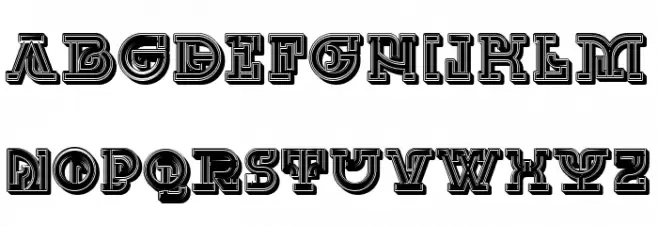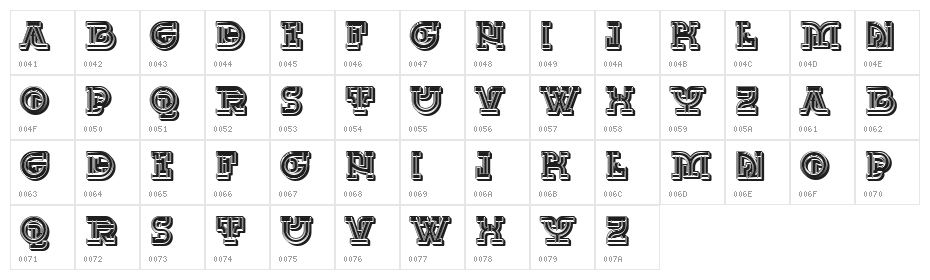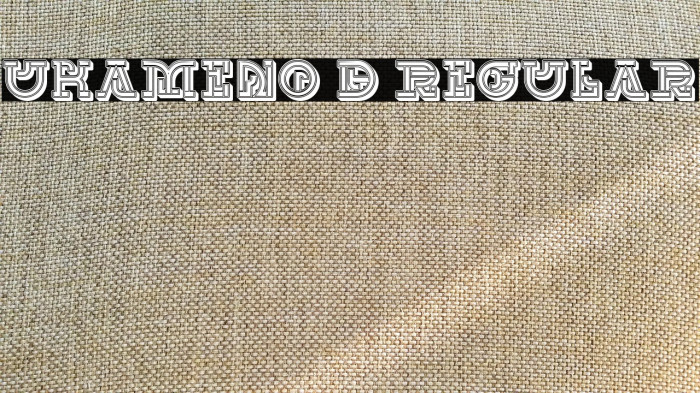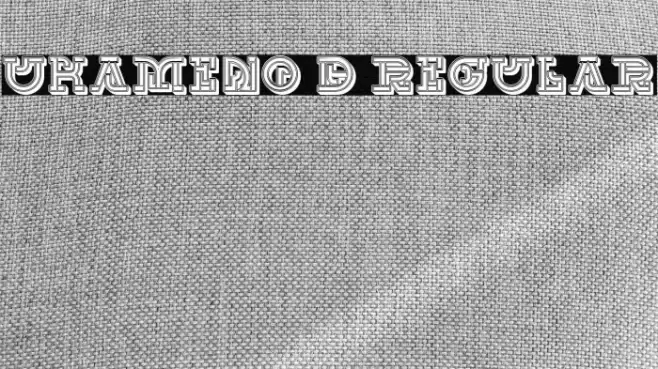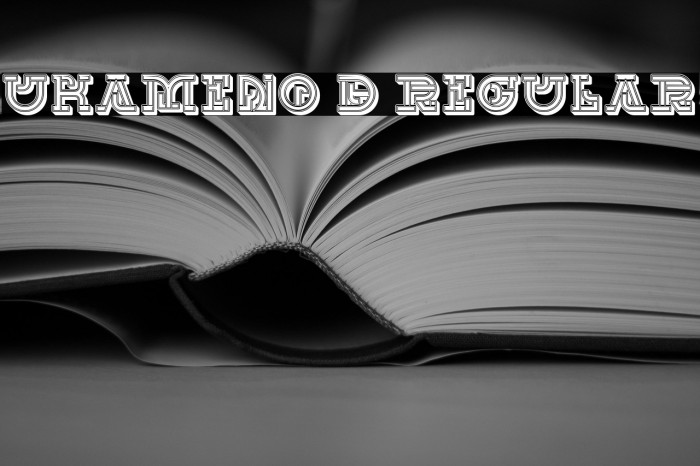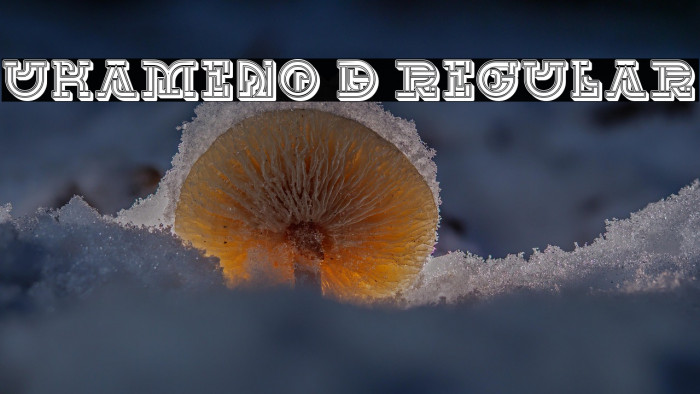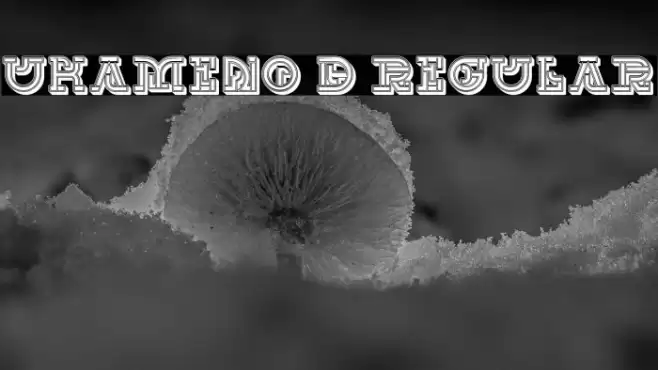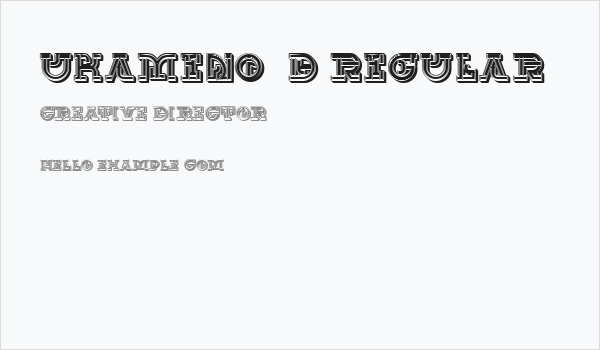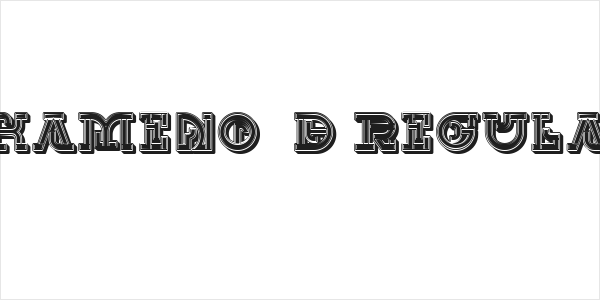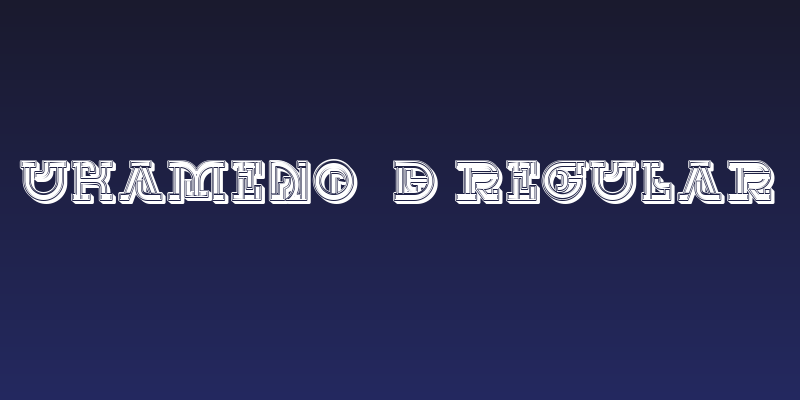
UKAMENO 3D Regular Font
UKAMENO 3D Regular Description
This font features a bold, three-dimensional design with a strong, impactful presence. The letters are capitalized and exhibit a layered, shadowed effect that gives them depth and a sense of movement. The strokes are thick and consistent, with a geometric style that emphasizes straight lines and sharp angles. The overall look is modern and dynamic, making it suitable for attention-grabbing headlines or titles. The spacing between characters is normal, allowing for readability while maintaining the bold aesthetic. The font's unique 3D appearance makes it stand out, ideal for projects that require a distinctive and memorable typeface.
| Proposed Projects | Ideal for posters, logos, headlines, and any design requiring a bold statement. |